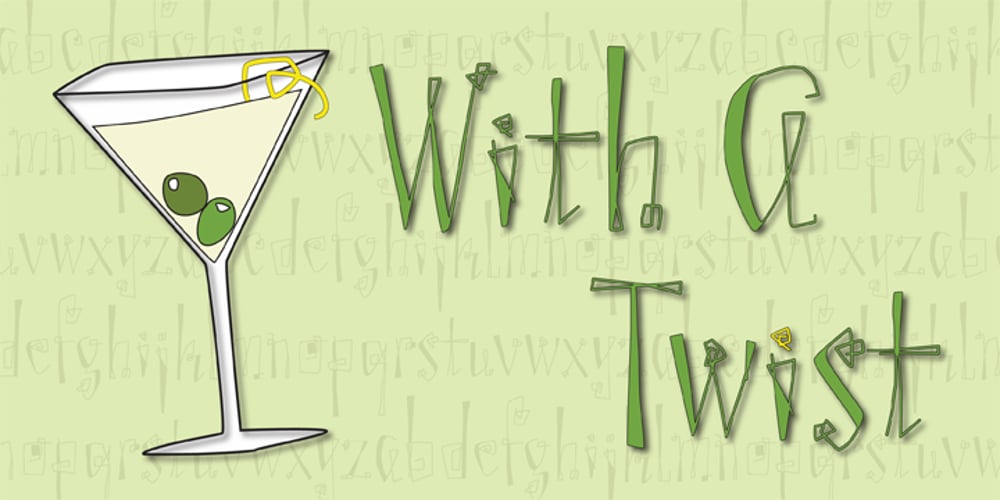
With A Twist Font Family was designed by Cecelia Harris and published by Letters by Wordsworth. With A Twist contains 2 styles and family package options. With A Twist is not shy, not ordinary, not predictable which makes it the perfect choice for attention-getting titles. With A Twist Monoline is slightly more retiring and fun to fill in. Pull up a stool, order a martini & have some font fun – With A Twist.